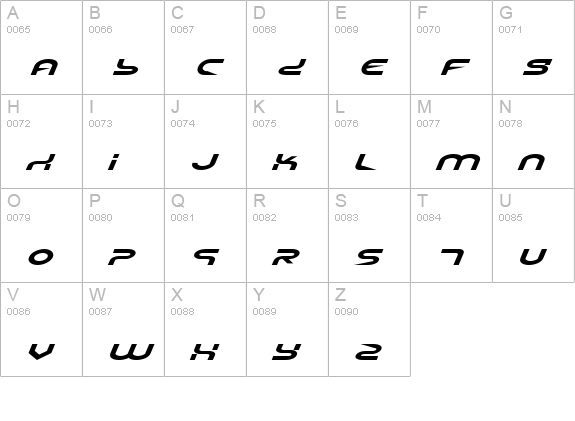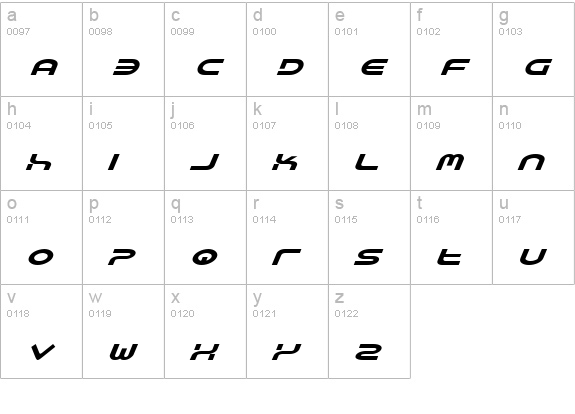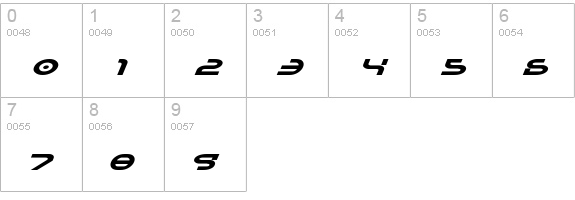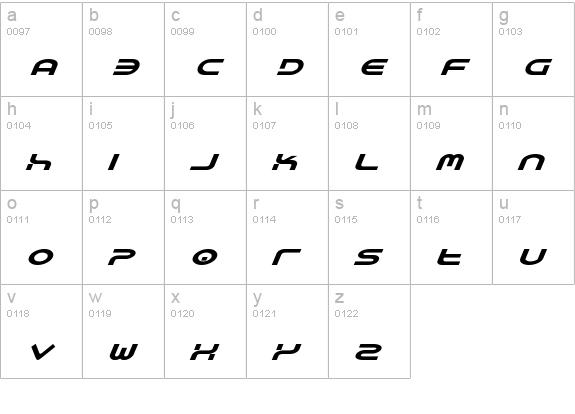
Yukon Tech Expanded Italic is a distinctive, extended-width, italic variant in the Yukon typeface family \xE2\x80\x94 well suited to design and typography projects.
Yukon Tech Expanded Italic font is a bold and dynamic typeface that exudes modernity and sophistication. Its sleek design and italicized characters make it perfect for adding a touch of elegance to any project. The font features clean lines and sharp edges, giving it a contemporary edge that is sure to make a statement. What makes Yukon Tech Expanded Italic font even more appealing is that it is available for free download at FontsMarket.com. This means you can easily access this striking font and use it in your designs without any cost. Whether you're working on a website, poster, logo, or any other project that requires a touch of flair, Yukon Tech Expanded Italic font is the perfect choice. Download it today and elevate your designs with this sleek and stylish typeface.